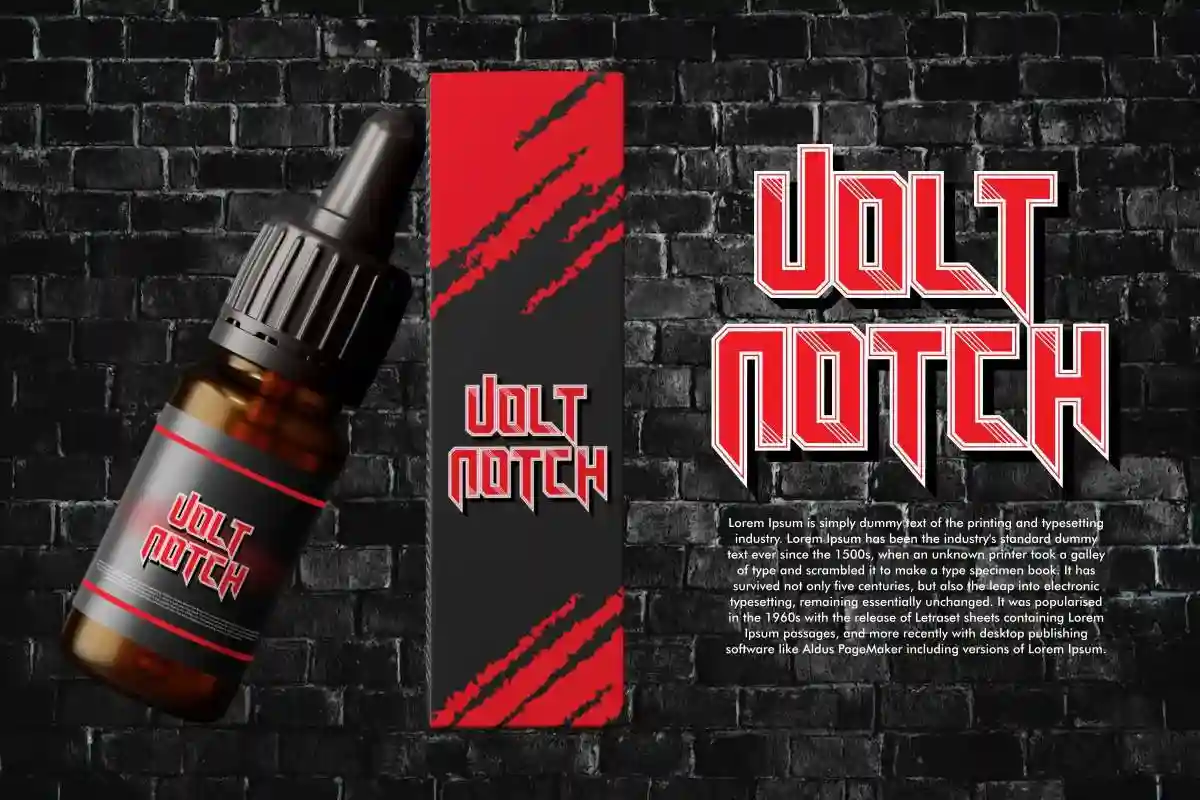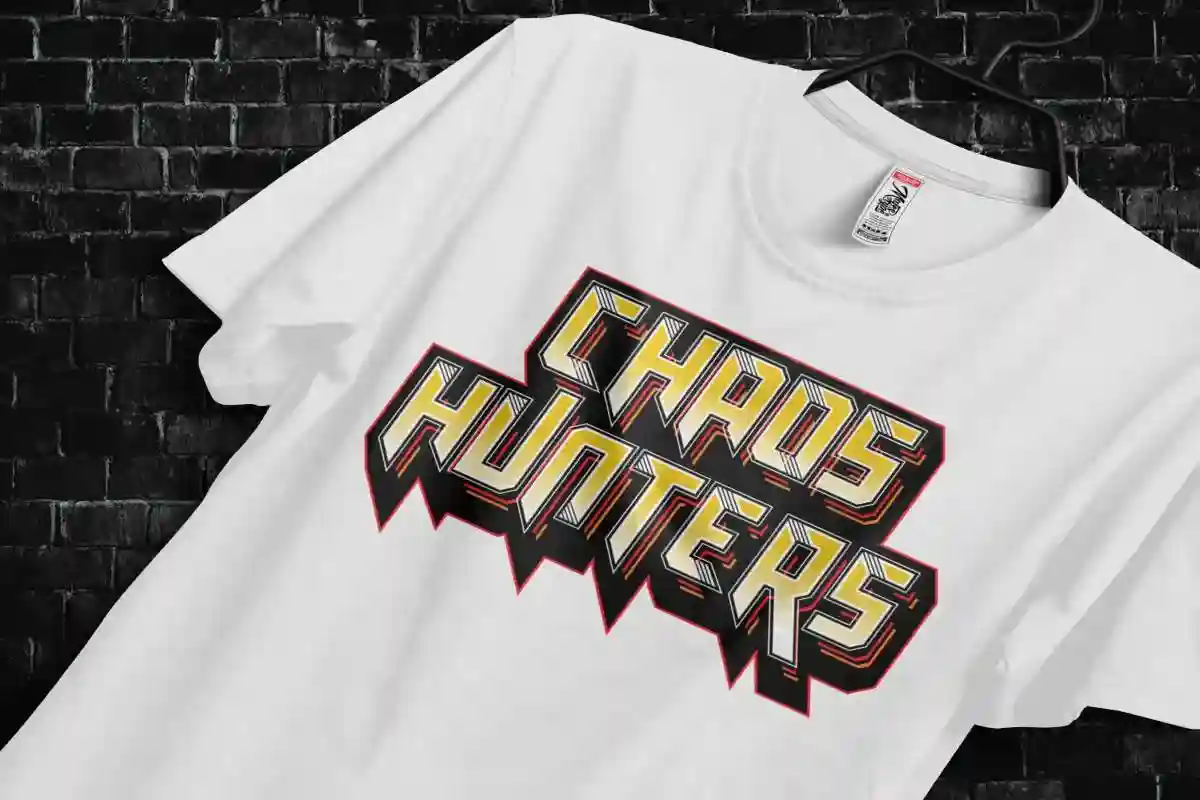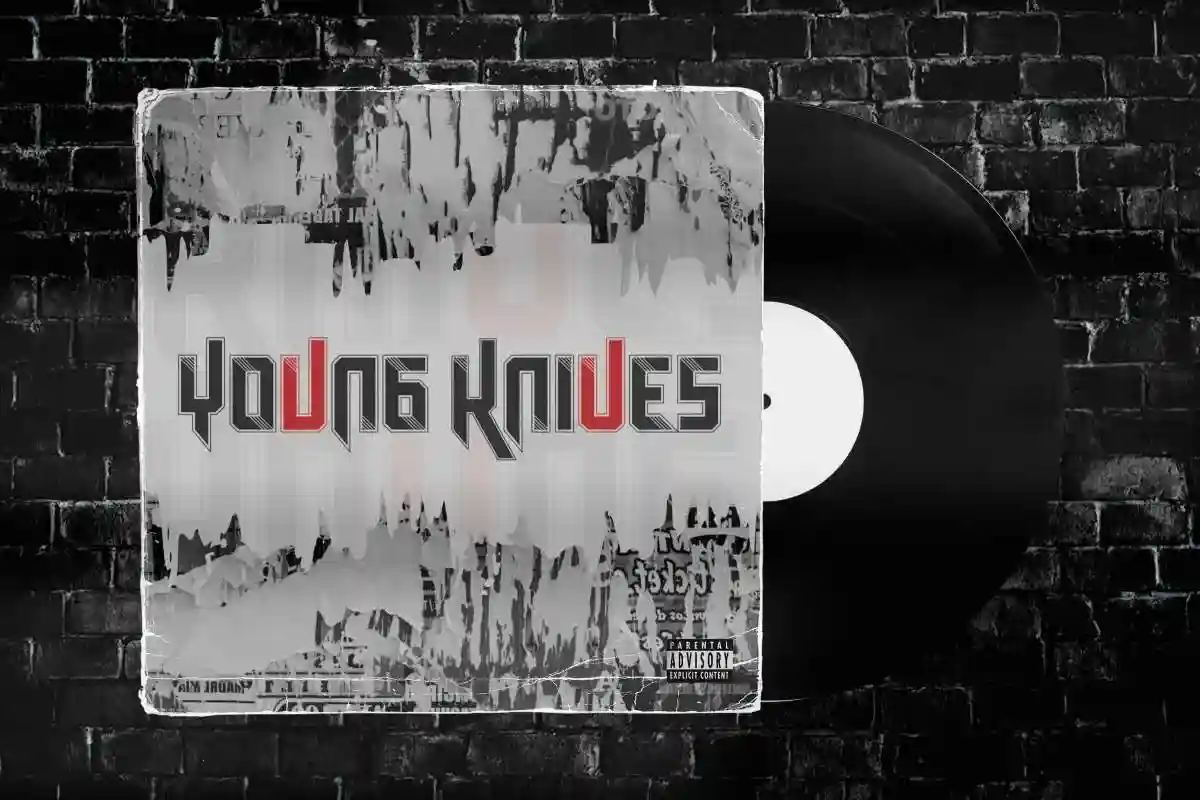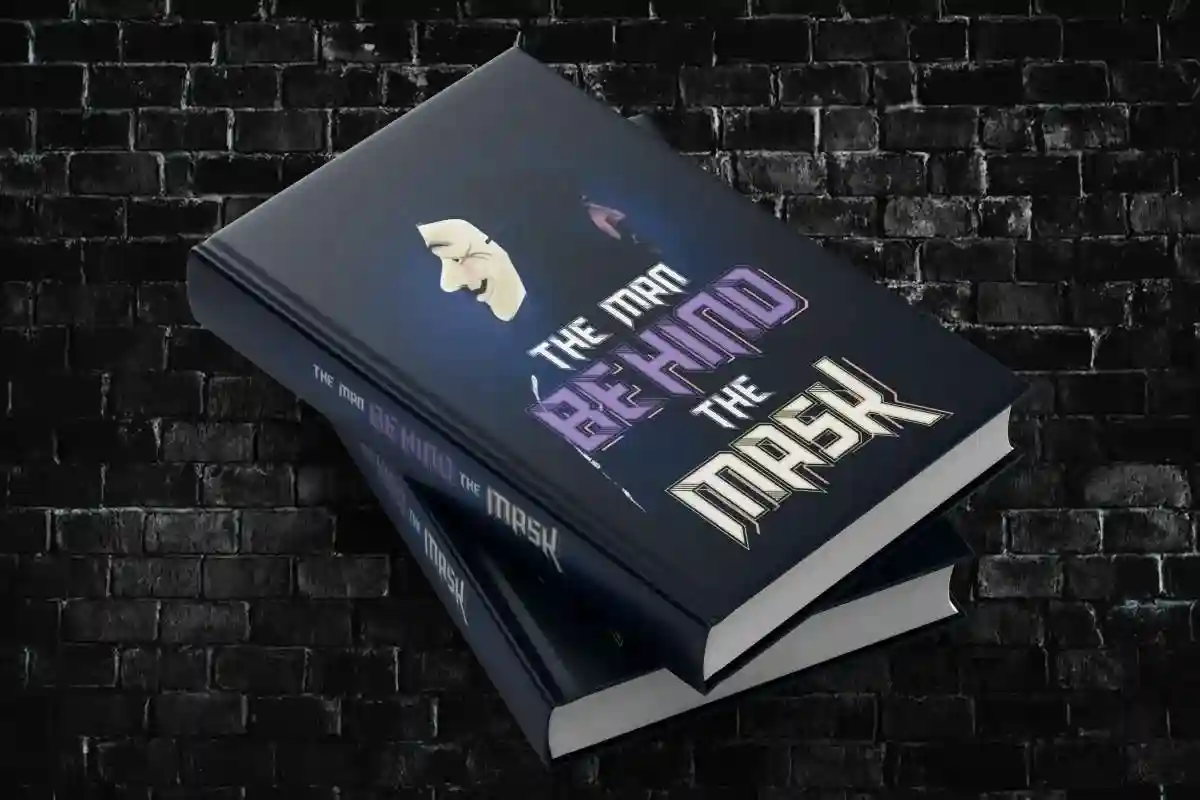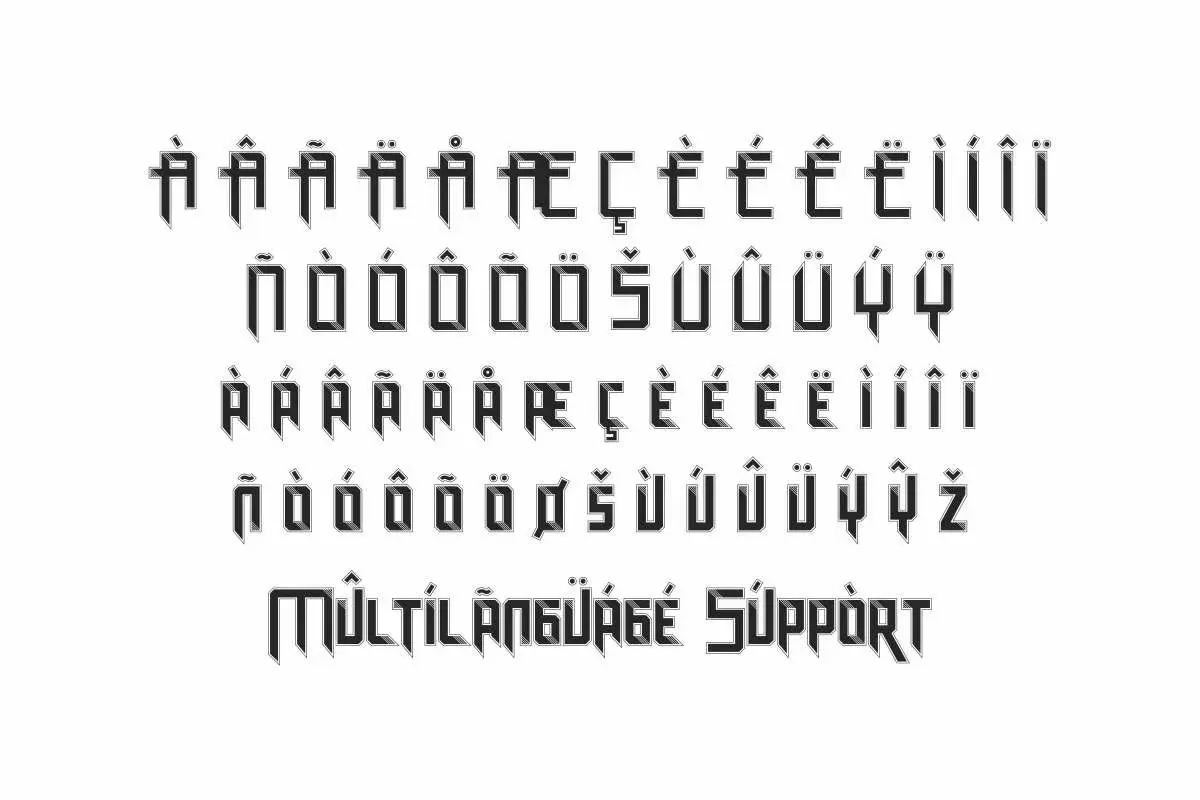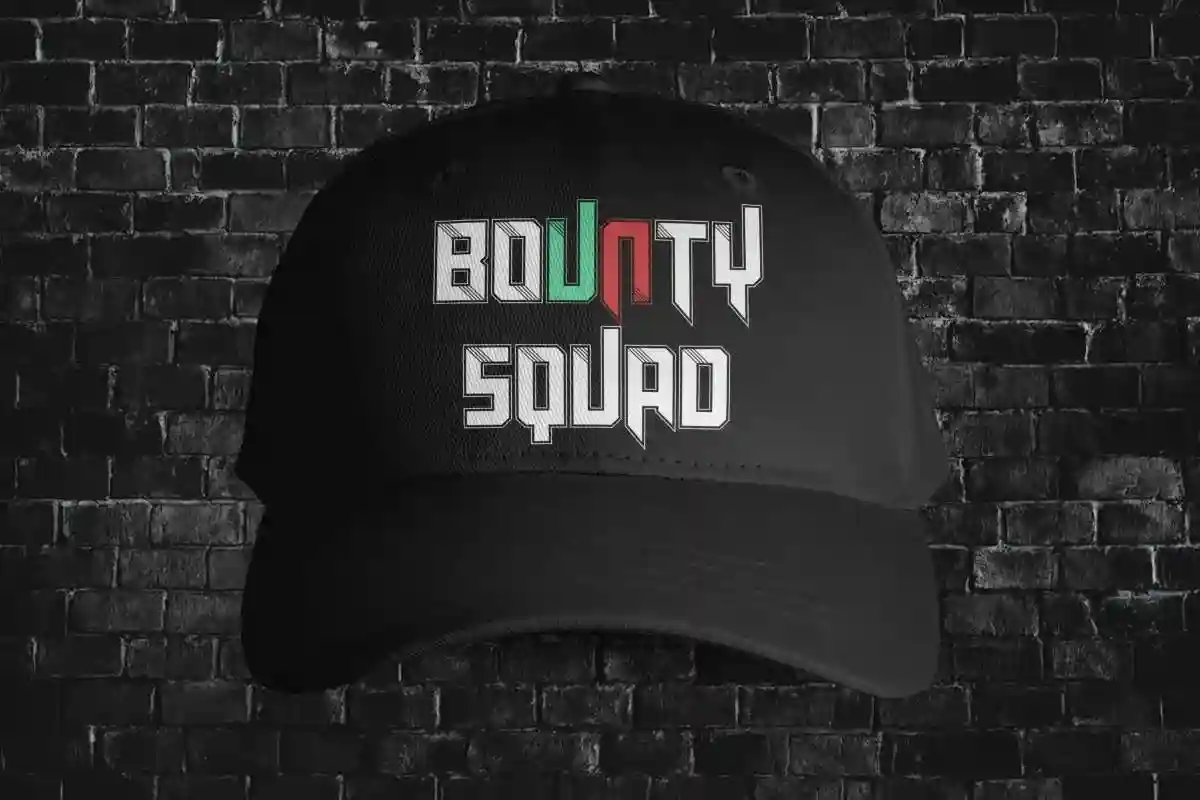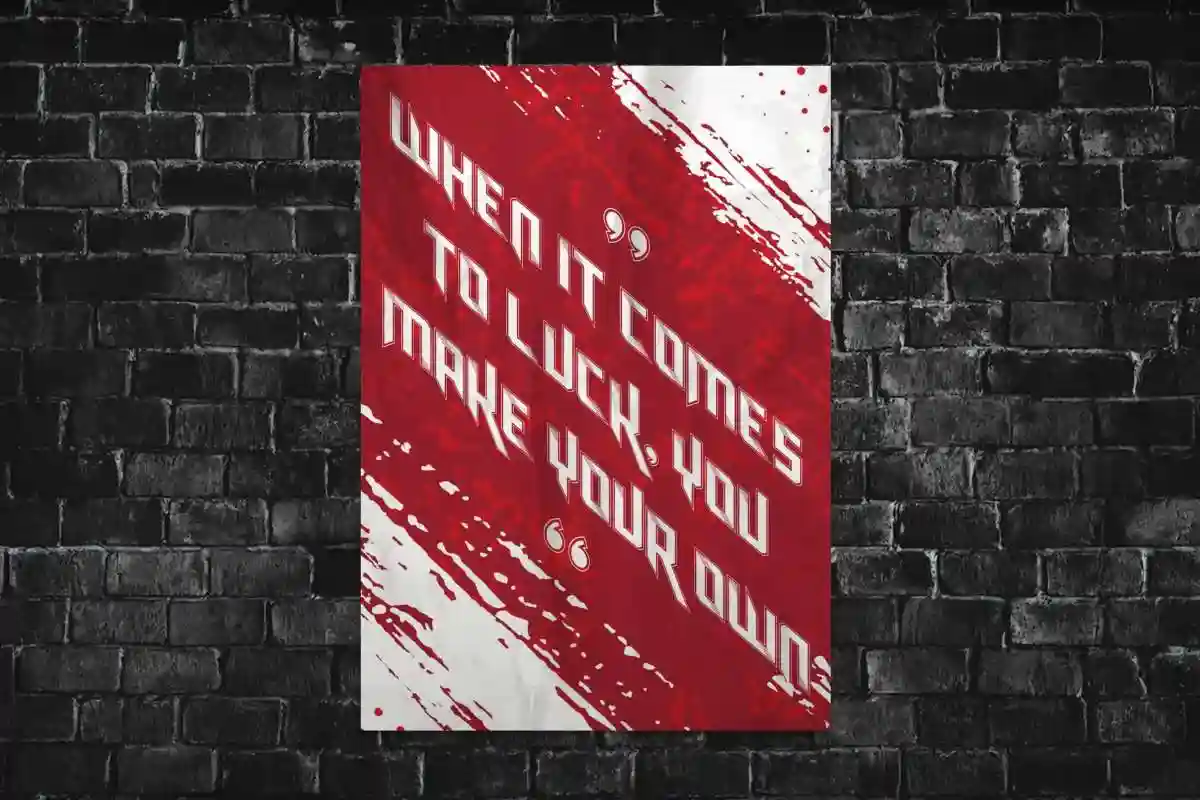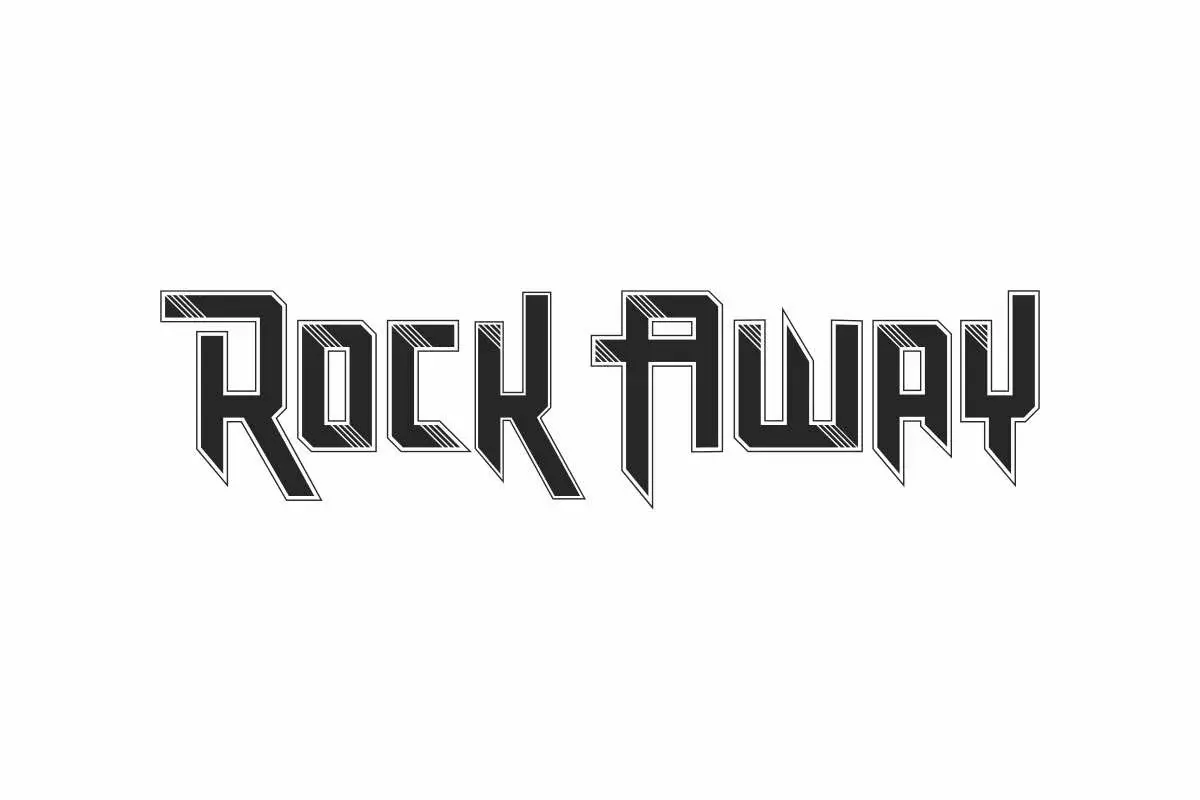
Rock Away Font is a racing typeface with metallic style that’s perfect for author, billboard, fashion, headline, movie, musician, quotes, writer, etc.
Rock Away Font is an exclusive display font with racing and music theme created by NihStudio. This font has a unique line effect and sharp at the ends of the letters that makes it stand out and is perfect for industries such as: automotive, cigarette, fashion, musician, writer, etc.
Rock Away Font would be good for brandings, creating logo, custom design, printed materials, packaging, quotes, and anything that requires a touch of strength and readability.
Rock Away Font comes with full set of Uppercase and Lowercase Basic Characters that are similar but not the same, Number, Punctuation and Symbol, and also supports multilingual characters. Ready to use both on Windows machine or Mac with simple installations. It’s tested to work well in the Adobe Apps (Illustrator, Adobe InDesign, Adobe Photoshop) CorelDraw, and others. PUA Encode Characters means you can access all the glyphs and other characters easily – Fully accessible without additional design software.